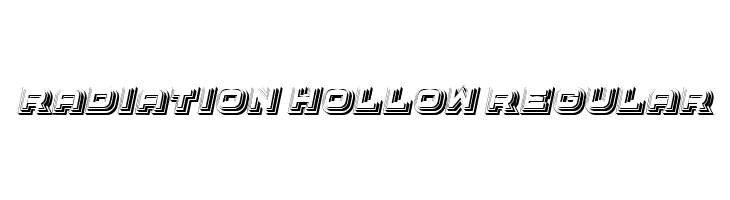
A bold, geometric font with a retro 3D video game aesthetic.
A bold, geometric font with a futuristic, digital aesthetic.
A bold, 3D block font with a futuristic digital style.
A bold, futuristic font with a three-dimensional effect and geometric design.
A bold, hollow, and layered font with a futuristic and dynamic style.
A bold, layered font with a retro 3D effect and geometric structure.
A bold, decorative font with a 3D outline and shadow effect, perfect for modern designs.